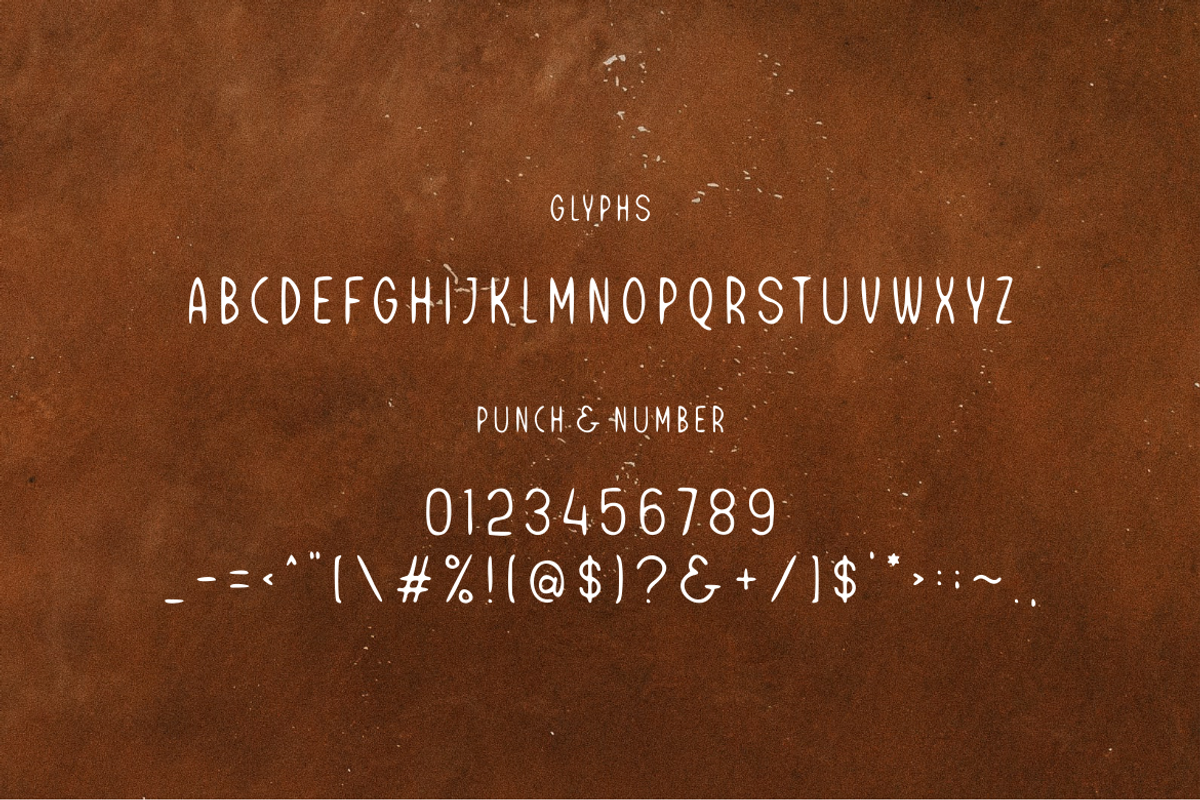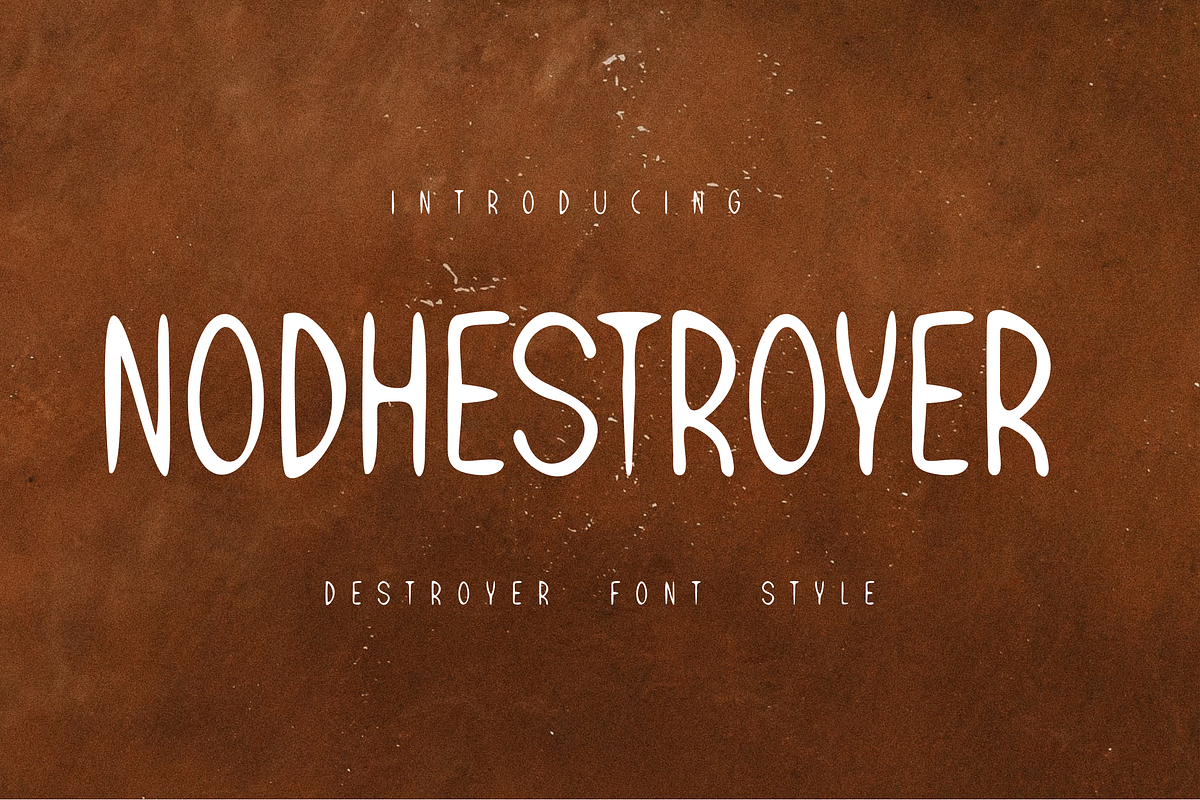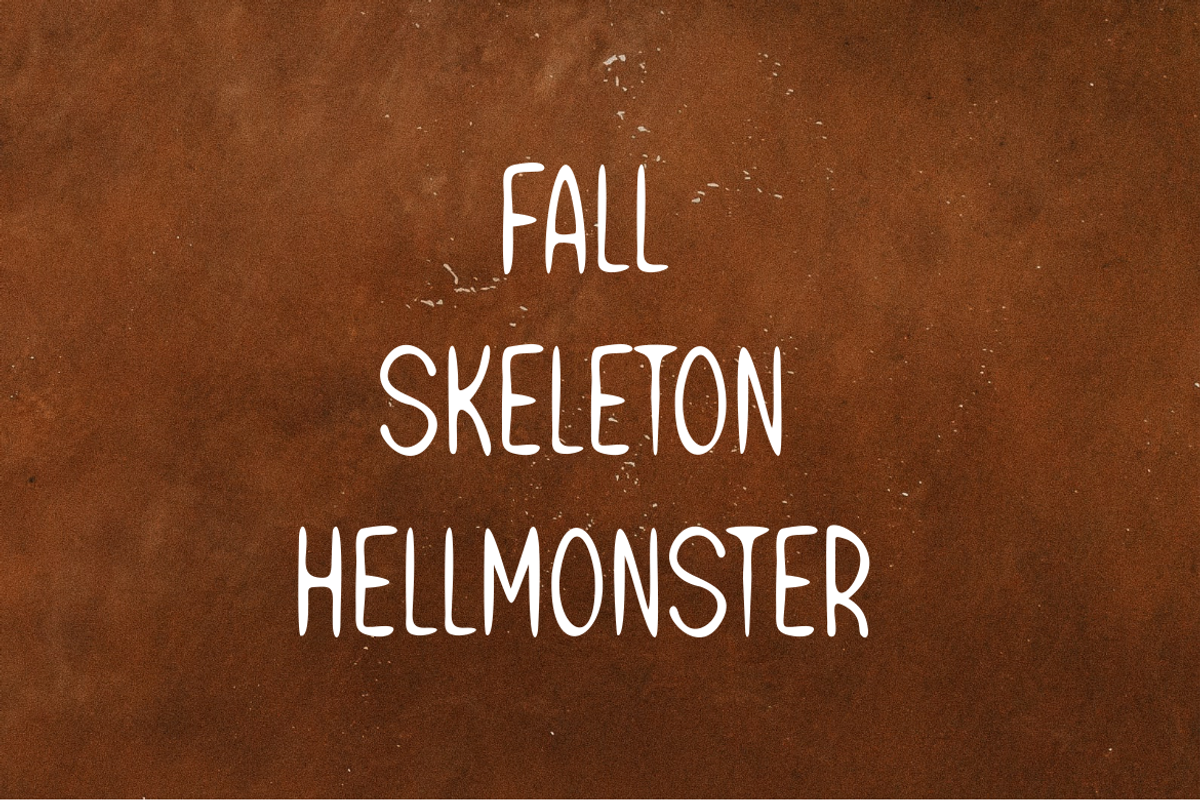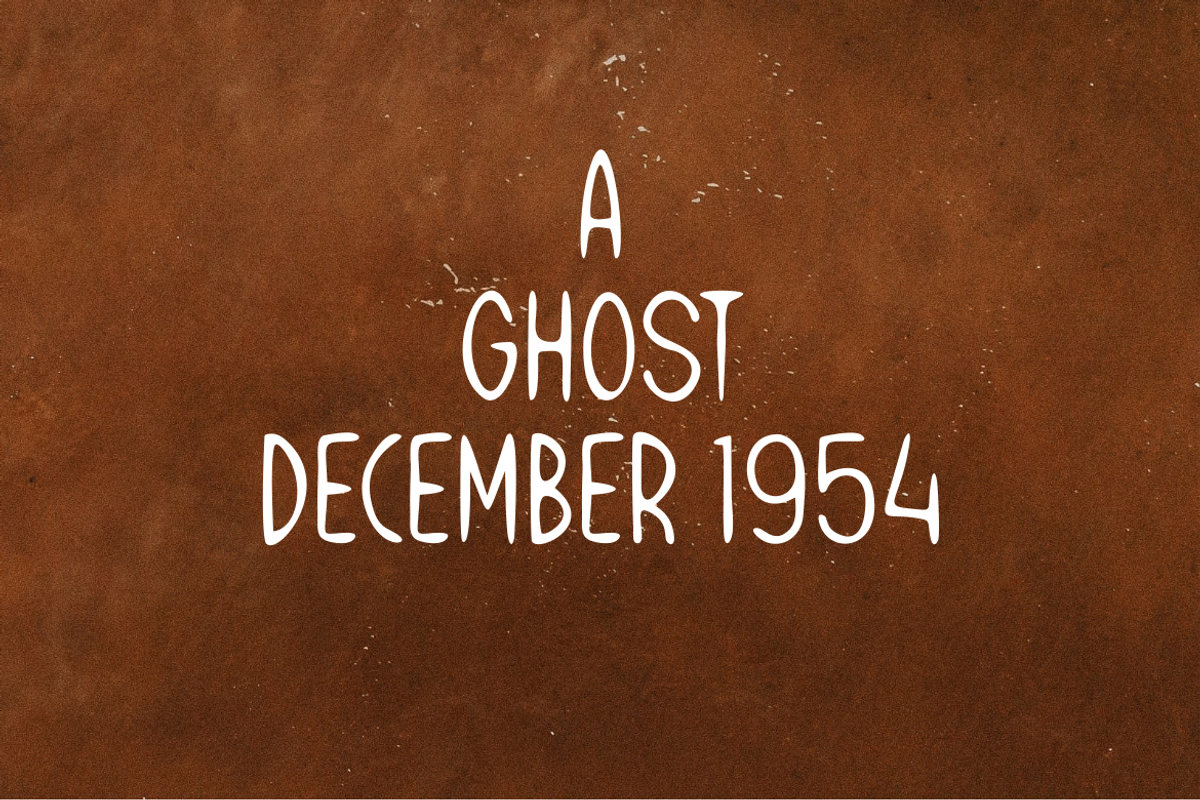
Nodhestroyer Font Modeling
Witness as the pages come alive with "Destroy" font, crafted with such precision that each node's effortless placement exudes an eerie elegance. This is the ultimate choice for summoning the classic vibes of aged horror cinema. Step back in time and accentuate your design with a touch of vintage fright, only achievable through the fine detailing of the Destroy Font. Irresistibly attractive yet spine-chilling, it perfectly melds the old and new, creating a hauntingly beautiful design experience.